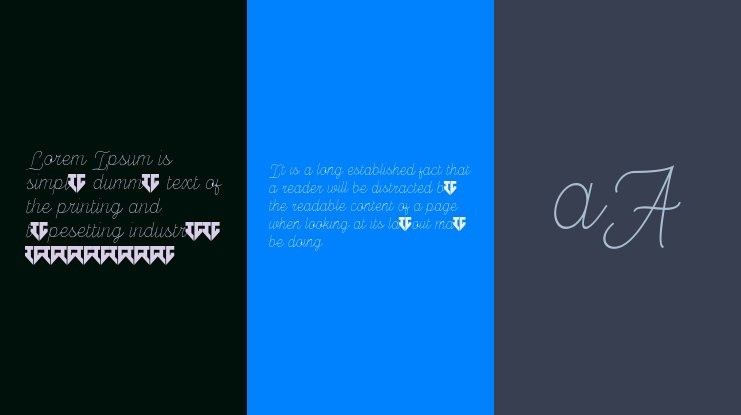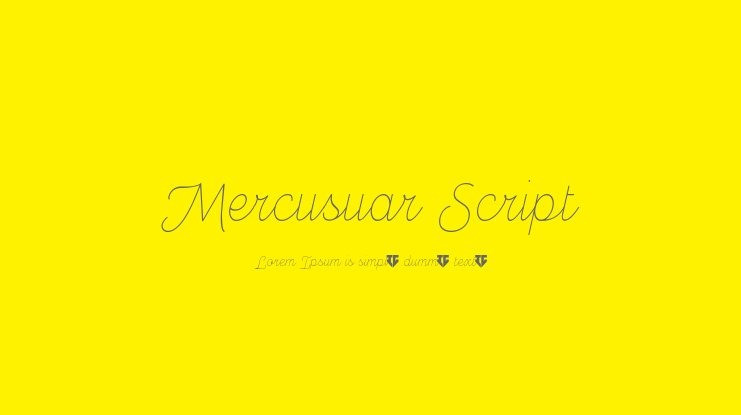
Mercusuar Extra Light Script Font
Mercusuar Extra Light Script Font, is a script font in the Mercusuar – Luxury Font Family. This is a classy and balanced  font that exudes elegance and sophistication. With clean lines and harmonious proportions, Mercusuar adds a touch of sophistication to any design project. Perfect for high-end branding, editorial design and advertising, it is the perfect choice for creating luxurious and sleek looks. Remember that fonts are PUA encoded, which means you can access all the cool strokes and strokes with ease.
Mercusuar FAMILY font – includes 3 styles (Normal, Current Italic, Script) and 21 boldnesses (Thin, Extralight, Light, Regular, Medium, SemiBold, Bold).